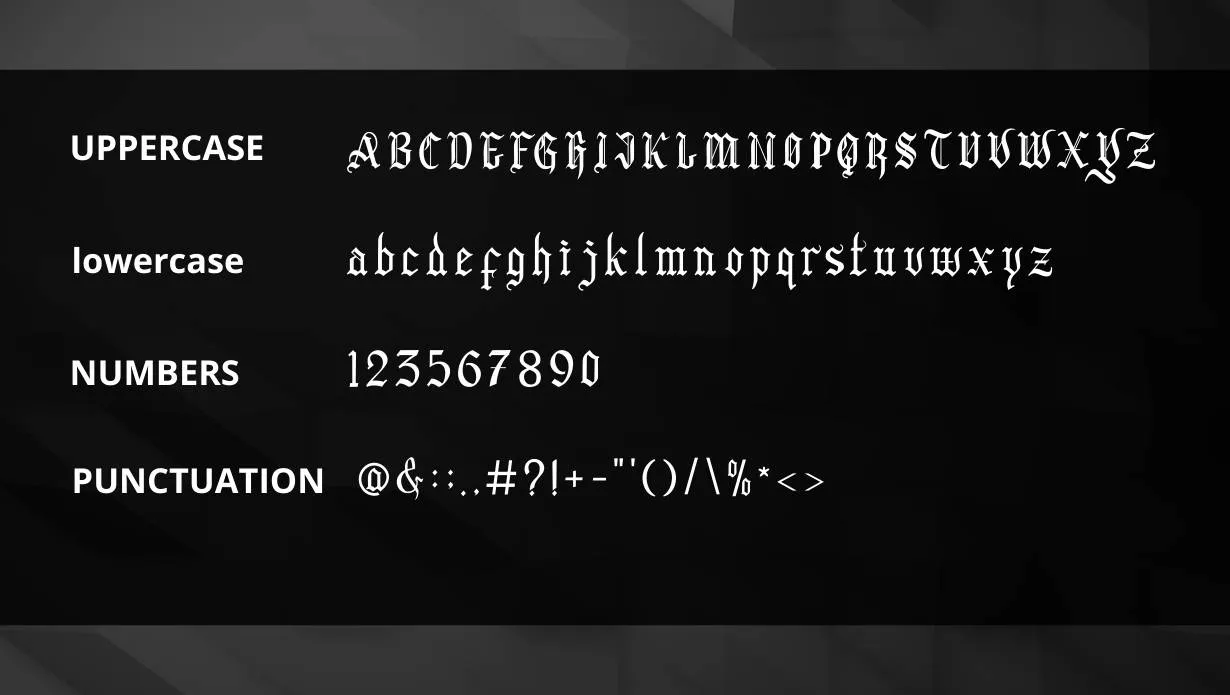
Black Clover Font is a gothic typeface that was designed by Mihail Kozlov in 2013. The Typeface is named after the black clover plant, which is native to Europe and Asia. The Black Clover Typeface has a unique look that is perfect for any project that requires a bit of personality. The font includes six different styles, including regular, italic, bold, and black. The Black Clover Typeface is available in both TTF and OTF formats.
View of Black Clover Font
Black Clover Font Info
| Name | Black Clover Font |
| Designer | Mihail Kozlov |
| Style | Gothic |